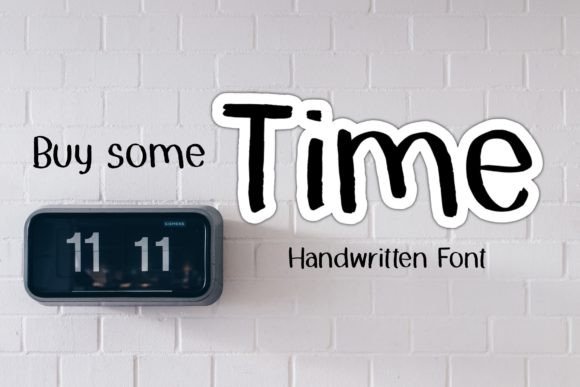
The Ultimate Guide to Buy Some Time Font: Adding a Touch of Whimsy to Your Designs
I’ll never forget the time I was working on a branding project for a crafty client, and I just couldn’t find the perfect font to match her playful vibe. She wanted something that would make her logo stand out, but still convey a sense of approachability and friendliness. That’s when I stumbled upon Buy Some Time, a casual, fun handwritten font that instantly won me over. In this article, I’ll share my love for this font, its features, and how to make the most of it in your designs.
An Honest Review of Buy Some Time Font
So, what makes Buy Some Time so special? Here are a few things I love about this font:
- ✨ Cute and quirky: Buy Some Time has a unique, hand-drawn feel that’s perfect for adding a touch of personality to your designs.
- ✅ Versatile: This font is suitable for a wide range of projects, from logos and branding to social media graphics and DIY crafts.
- 🎨 Handwritten with love: The font’s creator used a brush pen to craft each letter, giving it a warm, organic feel.
Of course, no font is perfect, and Buy Some Time has a few minor quirks:
- 🤔 Limited formal use: While Buy Some Time is amazing for informal projects, it might not be the best choice for more formal or professional designs.
- ⚠️ Some letter variations: The font’s handwritten nature means that some letters may have limited variations, which can affect consistency.
The Story Behind Buy Some Time Font
Buy Some Time was created by a talented designer who wanted to capture the essence of handwritten text. Inspired by the imperfections and quirks of brush pen writing, this font is the perfect blend of casual and fun. Whether you’re a designer, crafter, or hobbyist, Buy Some Time is sure to bring a smile to your face and a touch of whimsy to your projects.
| Font Name | Buy Some Time Font |
| Author | DREAMs Soul G. |
| What makes Buy Some Time font unique? | Its handwritten, brush-pen feel and quirky personality make it stand out. |
| Is Buy Some Time suitable for formal designs? | While it’s amazing for informal projects, it might not be the best choice for formal designs. |